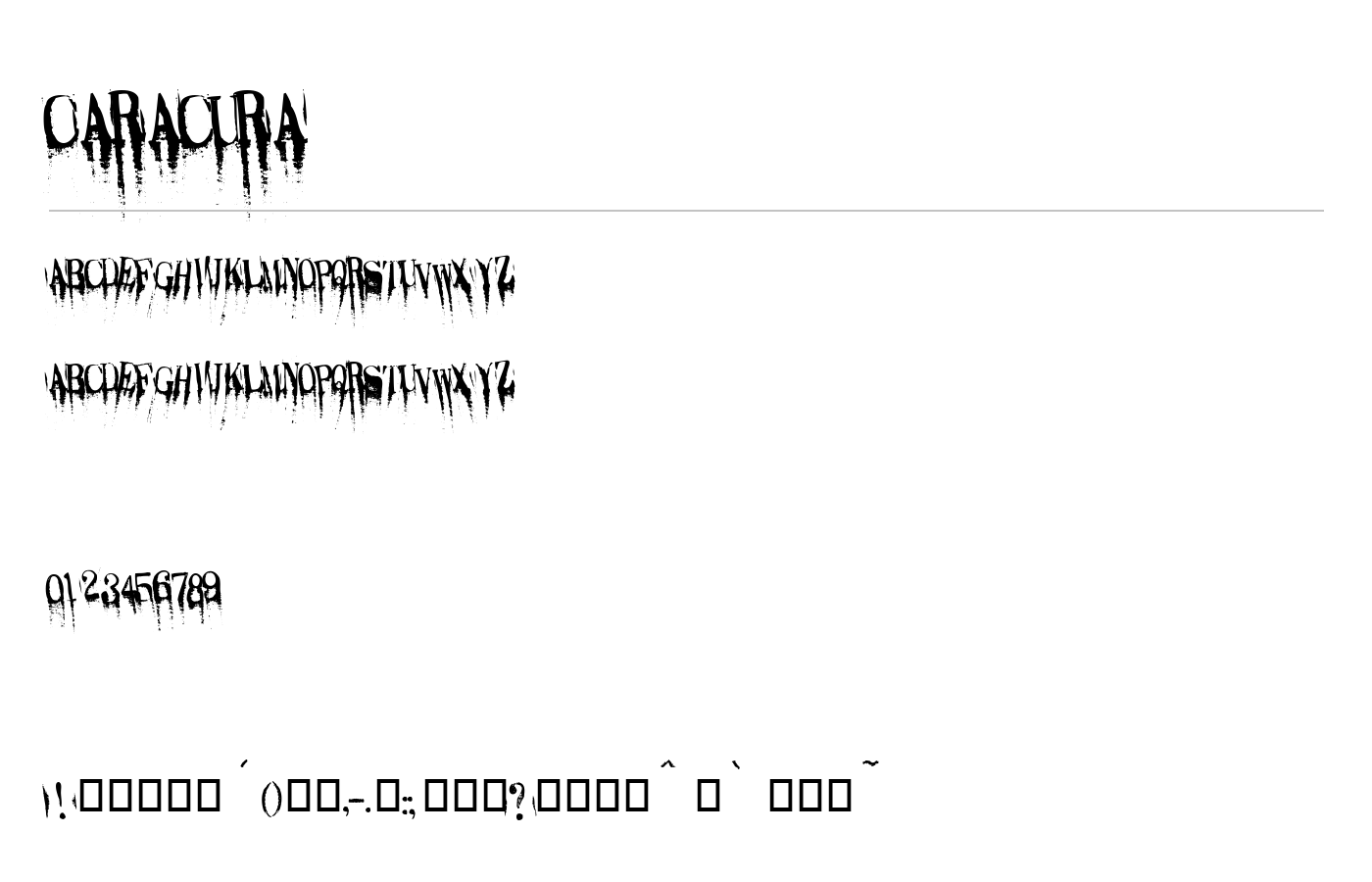
Caracura is a bold, distressed display font with a strong grunge aesthetic, featuring irregular, dripping edges that create a dark, eerie vibe. Its uneven strokes and narrow, tall letterforms give it a striking, chaotic personality, making it perfect for horror-themed designs, edgy posters, or any project seeking a dramatic, unsettling impact. This font works best in headlines or logos where a powerful, attention-grabbing style is needed.
Caracura Font
About Caracura Font